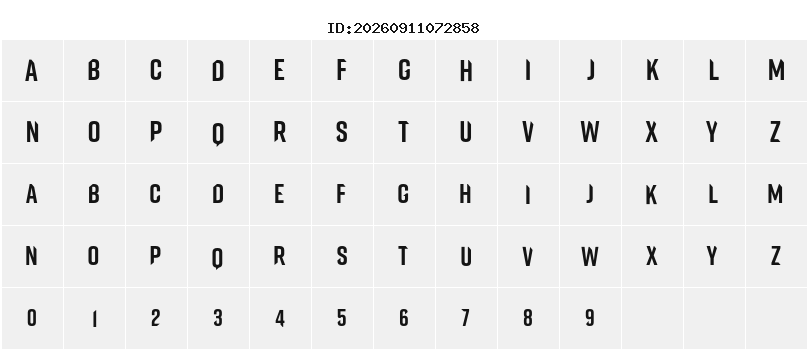
VanFonting Preview
• Font Name: VanFonting
• Full Font Name: VanFonting
• PostScript Name: VanFonting
• Manufacturer: dee.signator
About VanFonting.otf
VanFonting.otf is a modern, elegant sans-serif font designed for ultimate readability and visual harmony. Perfect for branding, headlines, web design, and print materials.